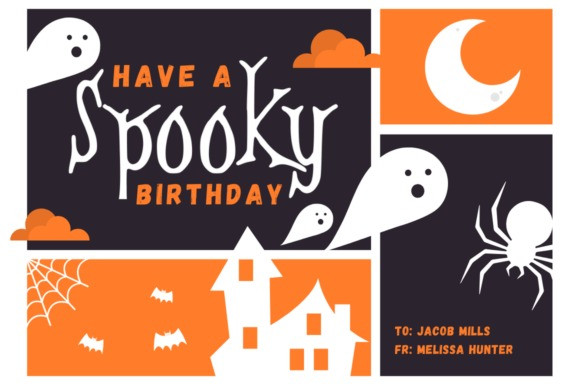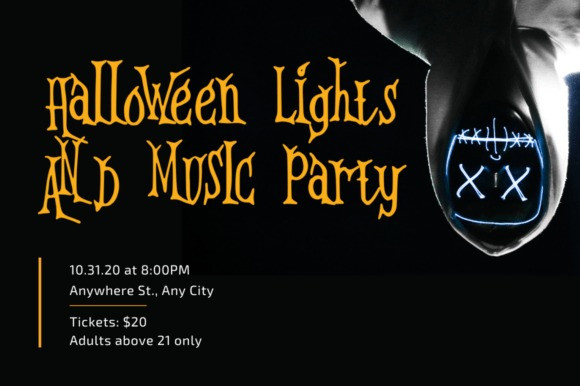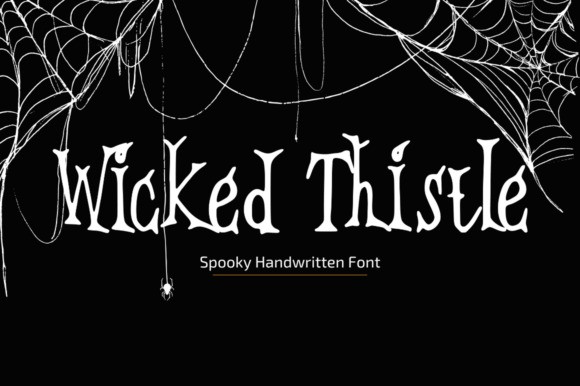
Wicked Thistle Font
Wicked Thistle Font is a tall, eerie spooky font with hand-drawn irregularities that make it perfect for spooky titles, Halloween invitations, dark fairytales, horror-themed merchandise, or mystical branding. Its jagged strokes and haunting curves add a chilling charm while maintaining readability.